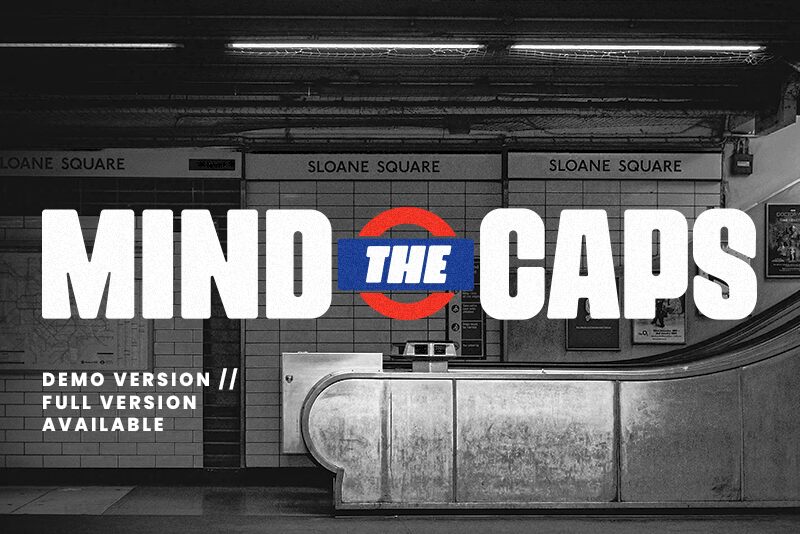
Mind the Caps font is a bold sans serif typeface designed by Philip TRAUTMANN of Shaped Fonts.
LONDON, BABY! After missing London so much I've decided to pay tribute to the infamous "Mind the Gap" Sign, but this time it's all about CAPS.
Enjoy a FREE demo for our new & ALL-CAPS display font! Its smoothness and rounded edges present the font with a new, unique character. At the same time you can use the font for many ways and it's always an eye-catcher.